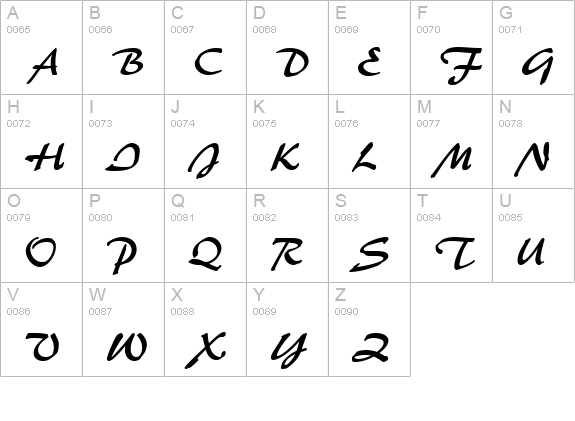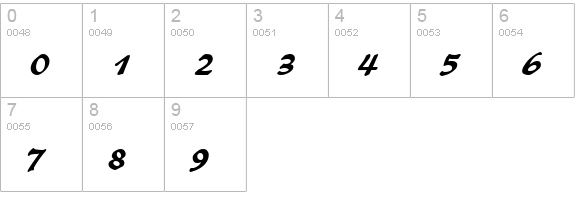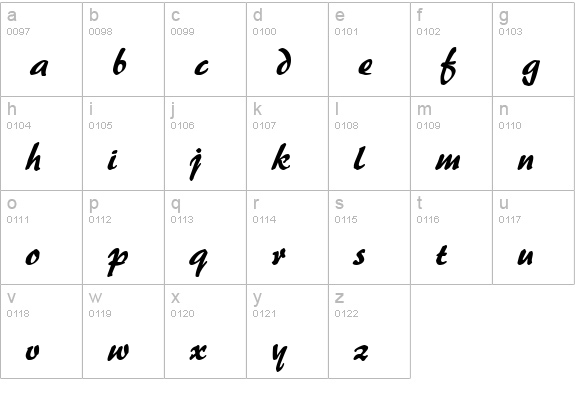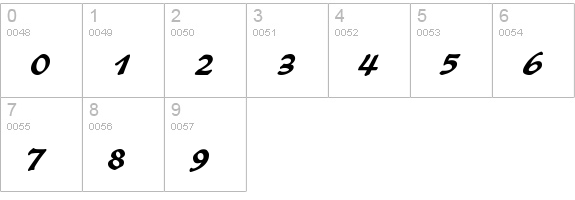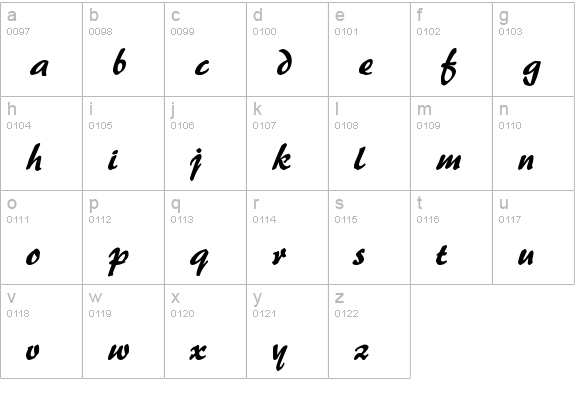
PaletteD Font Details
PaletteD is a stunning and versatile font that will add a touch of elegance and sophistication to any design project. With its clean lines and modern aesthetic, this font is perfect for both professional and personal use. Whether you're creating a logo, designing a website, or crafting a social media post, PaletteD will effortlessly elevate your work to new heights. What sets PaletteD apart is not only its impeccable design but also its accessibility. This font is absolutely free to download, making it an ideal choice for budget-conscious designers and creatives. With PaletteD, you can achieve professional-looking results without breaking the bank. To get your hands on this incredible font, simply head over to FontsMarket.com, where it is freely available for download. FontsMarket.com is a trusted source for high-quality fonts, and their extensive collection ensures that you will find the perfect typeface for your next project. So why wait? Download PaletteD today and unleash your creativity with this exceptional font. With its sleek and timeless design, it is guaranteed to make a lasting impression on your audience. Whether you're a seasoned designer or just starting out, PaletteD is the font that will take your work to the next level.